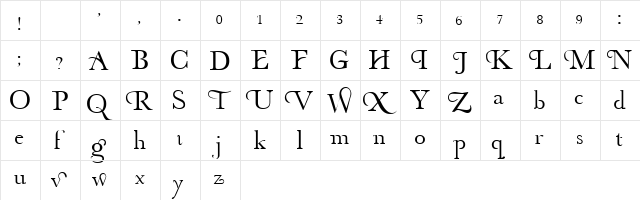
decorative fontFINAL Regular
Design Context for decorative fontFINAL Typeface
decorative fontFINAL is built around its visual character rather than neutral utility — its distinctive forms are designed to make an impression at display sizes.
Font Pairing: Pair with a clean neutral sans-serif for body copy to let decorative fontFINAL's character lead without overwhelming the composition.
Pro Tip: Use decorative fontFINAL exclusively at display sizes — it was designed to be seen, not read at length. Let a neutral companion handle body copy.